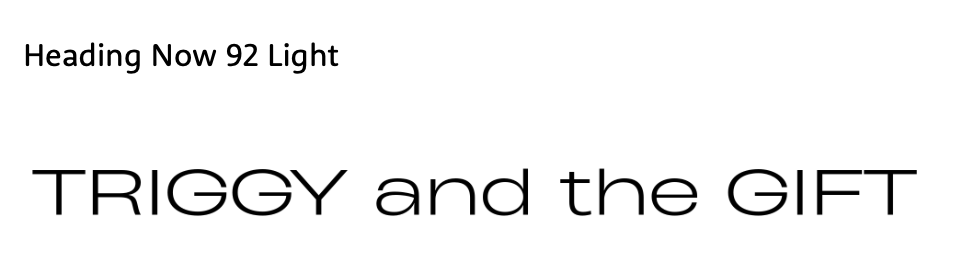
The type on the bottom is Avenir, slightly expanded. Top two lines are in a different face. I’ve found a few near matches, but if the G is good, the R is not, and vice versa.
The R in Dienstag has a straight leg; the R in Triggy has a curved leg like Helvetica. Headline Now 92 has an R with a curved leg, but the l.c. a isn’t right and you’ll have to customize the G.
Yes, it’s definitely Heading Now 92! Thank you!!